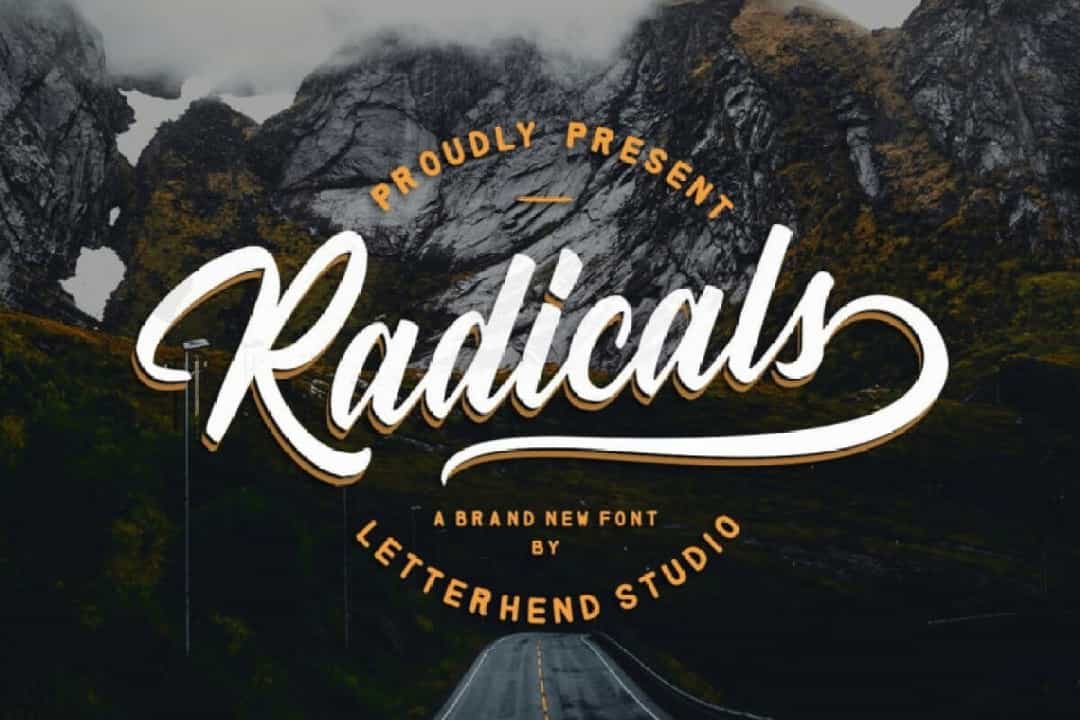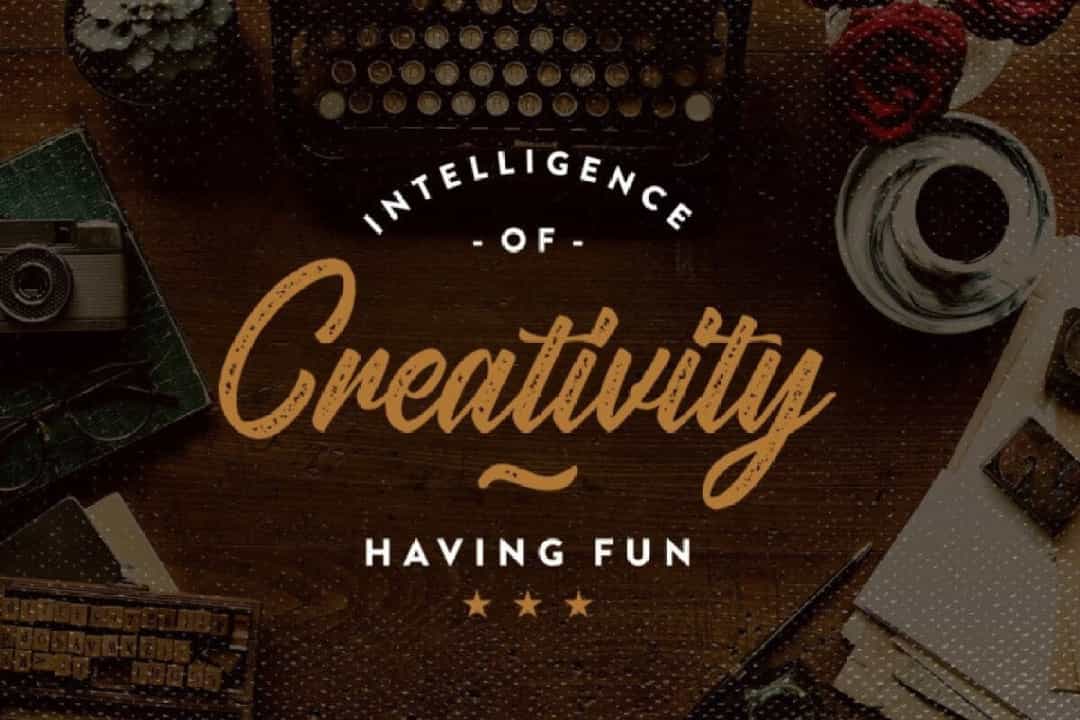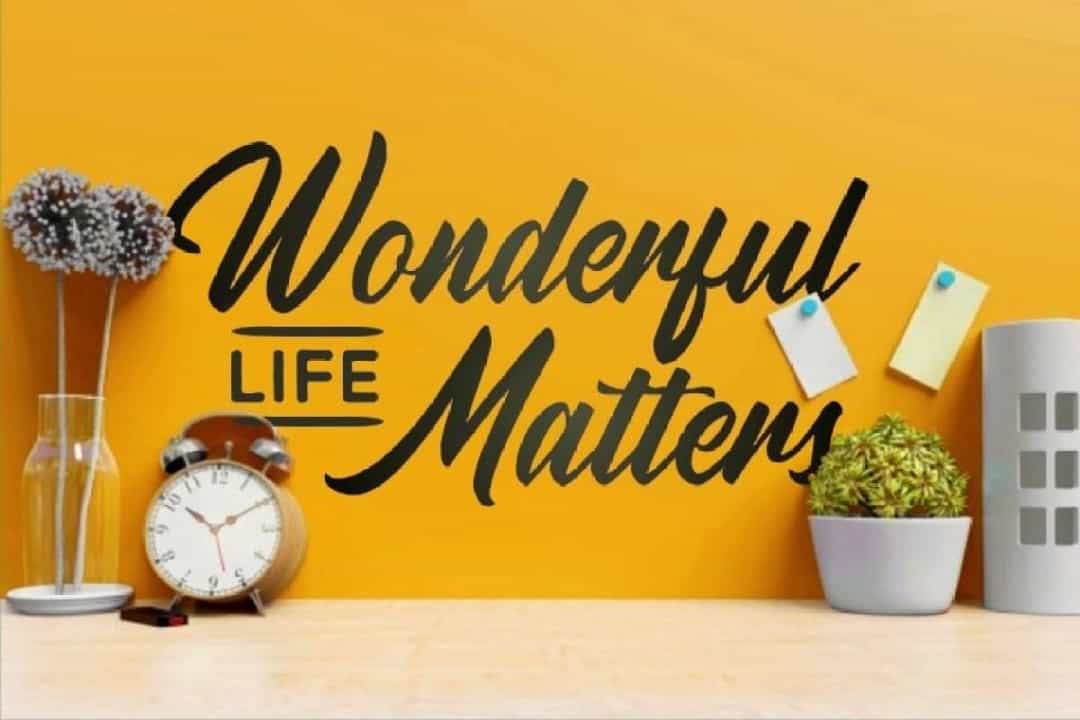
Radicals is a script calligraphy font with a vintage and rustic appearance! Perfect for headlines, logotypes and invitations, apparel packaging branding advertising campaigns and more, this font comes complete with lowercase letters, uppercase letters, punctuation numbers symbols stylistic set alternate ligatures etc and can even support multilingual writing!